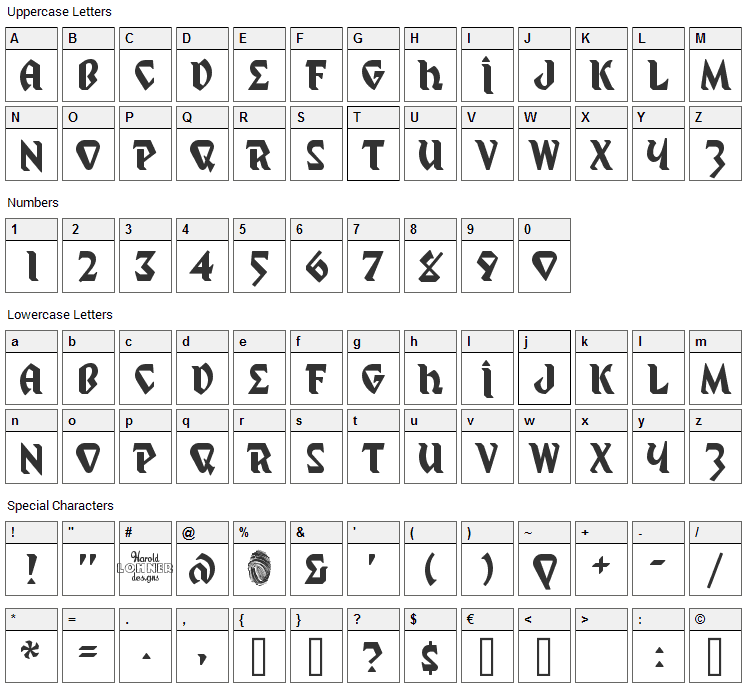
Mystic Prophet Font
Exotic, “Egyptian” MYSTIC PROPHET is my third font inspired by Ouija boards, or, strictly speaking, talking boards. (This one is from another company, Haskelite, from the 1940s.) My friend Wink first brought it to my attention. The planchette (the divining tool) is shown here; you can find much more information at the Museum of Talking Boards.